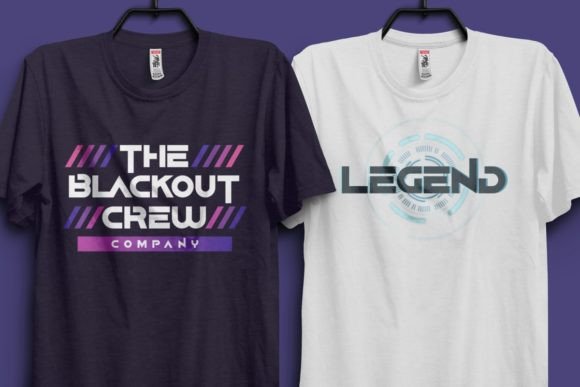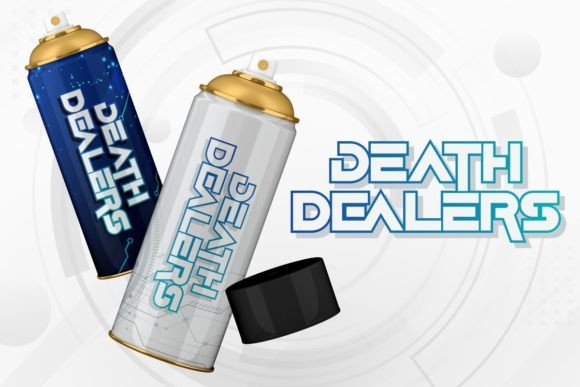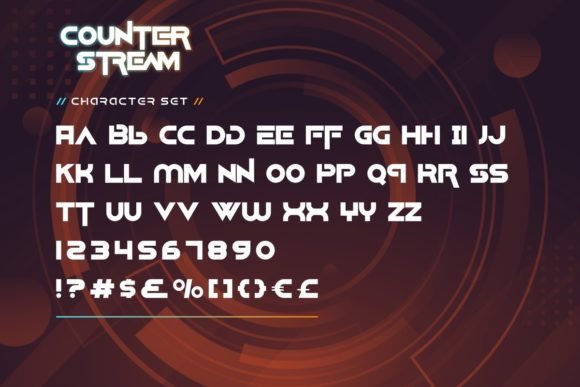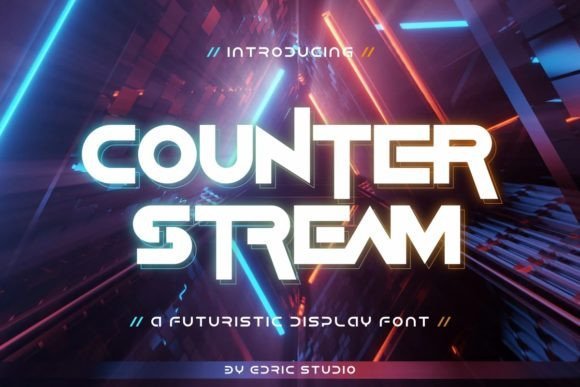
Introduction to Counter Stream Font
Counter Stream is a bold and unique display font that combines sleek lines and sharp angles for a futuristic look.
This sans serif font has a geometric structure and a cutting-edge vibe, making it perfect for tech-related designs, gaming projects, or any other futuristic themes that require a bold and impactful font Counter Stream is PUA encoded which means you can access all the glyphs and ligatures with ease.
Key Features of Counter Stream Font
Why Choose Counter Stream Font?